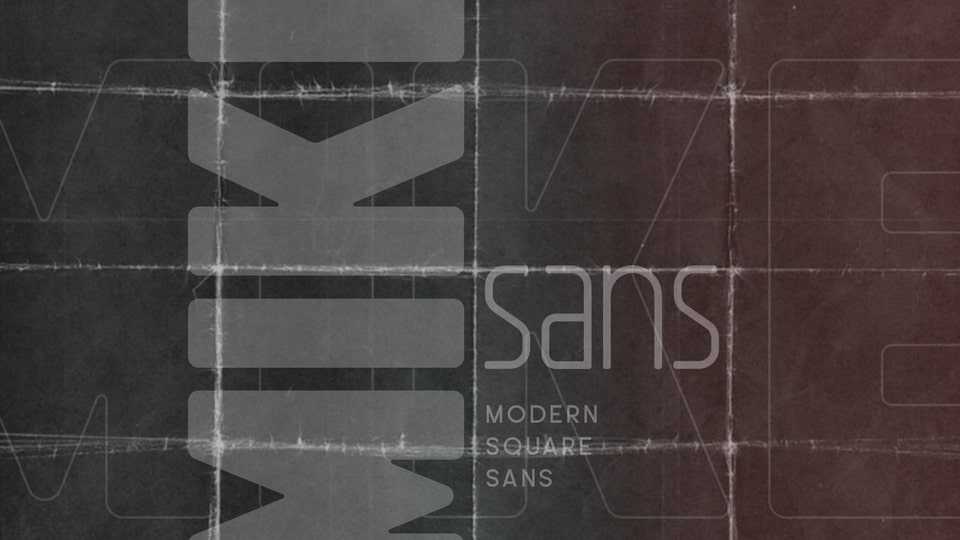
Download Mike Sans font, a modern sans serif typeface featuring a square style. Its design offers clean and modern glyphs that create versatile options for any display use.